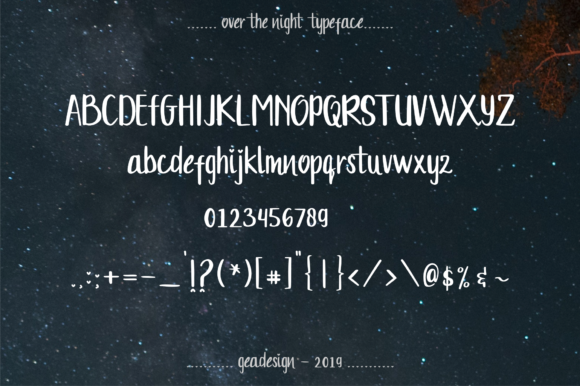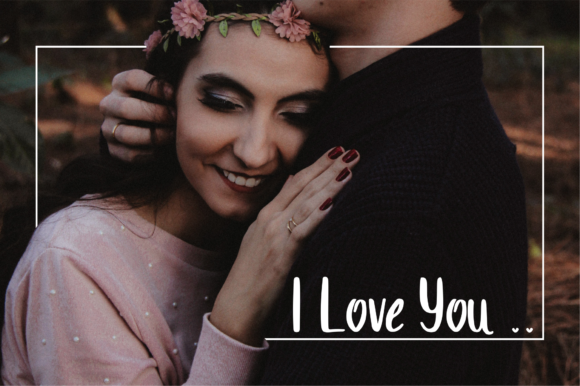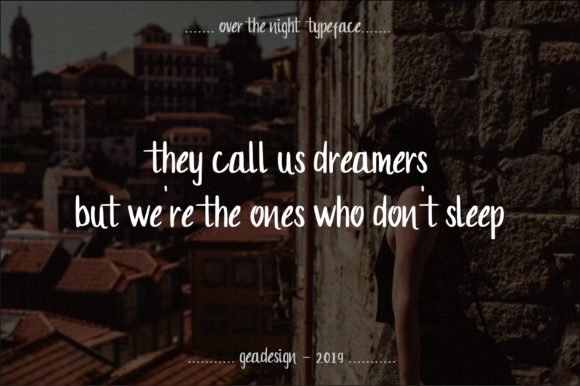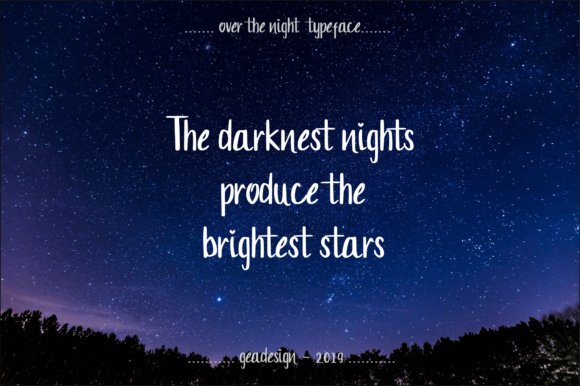
Introduction to Over the Night Font Font
Fonts play a crucial role in design, and the Over the Night Font font is a typeface that brings both character and versatility to any project. Whether you’re working on a branding project, a website, or a print design, the Over the Night Font font offers a unique style that can elevate your work.
The Over The Night is a simple and lovable font.
It has a natural handwritten style and is perfect for adding some love and sweetness to your designs .
Key Features of Over the Night Font Font
Why Choose Over the Night Font Font?
The Over the Night Font font is more than just a typeface – it’s a design tool that helps you communicate your message with style and clarity. Its unique character set and versatile design make it suitable for a wide range of applications, from elegant invitations to bold headlines.
With its carefully crafted letterforms and balanced proportions, the Over the Night Font font ensures readability and visual appeal across all mediums.
What makes Over the Night Font font special?
The Over the Night Font font stands out with its unique design, exceptional readability, and versatility across various design applications.